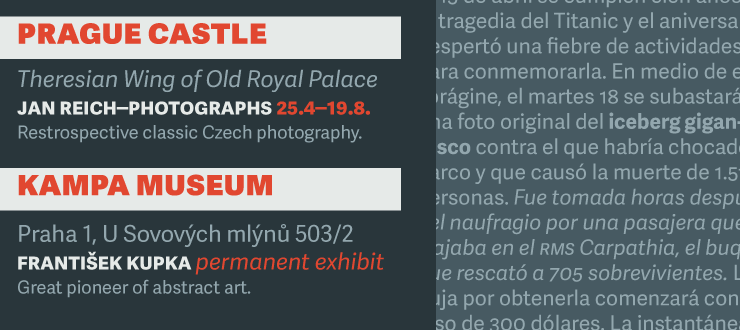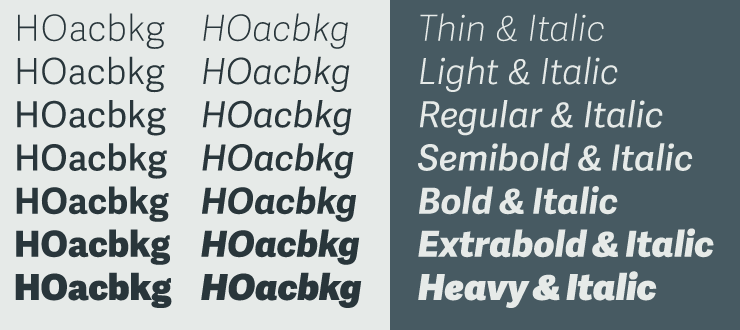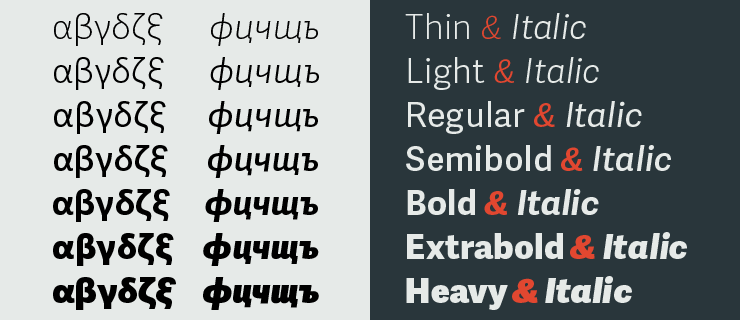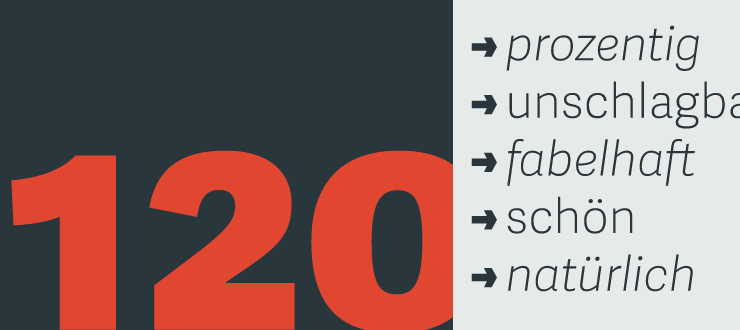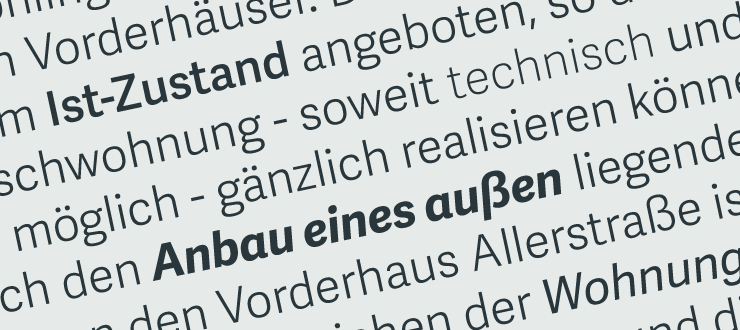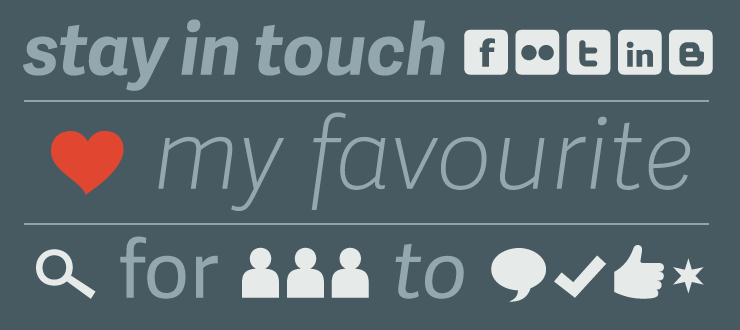
Adelle Sans
Designed by José Scaglione Veronika Burian . Released 2012.
Adelle Sans provides a clean and spirited take on the traditional grotesque sans. Whether for branding, signage, or advertising, the keyword behind Adelle Sans’s use is flexibility. Each of its 30 styles is a perfect match in terms of weight and vertical proportions to its slab serif equivalent, Adelle, ensuring an harmonious fit between both type families in the same block of text and a pleasing change of texture when used at similar point sizes. Adelle Sans is an exhaustive family with extensive language support. See the other scripts here.
The Backstory
Adelle Sans
A flexible and personable world-ready sans, providing true multilingual font support.
The Adelle Sans font family by José Scaglione and Veronika Burian provides a more clean and spirited take on the traditional grotesque sans. As is typical with TypeTogether typefaces, the most demanding editorial design problems were taken into consideration during its creation. The combination of lively character and unobtrusive appearance inherent to grotesque sans serifs make it an utterly versatile tool for every imaginable situation. Whether for global branding, screens, signage and advertising, or UI, the keyword behind Adelle Sans’s use is flexibility.
To save space and keep legibility high, Adelle Sans is available in eight weights with matching italics and includes a condensed width of seven weights with their matching italics. Each of these 30 styles hits the perfect tone as a headline punch or subdued background hum, and the condensed widths are adept at setting short texts while retaining the expected personality.
Rooted in the belief that broad language support is crucial to modern global type design, the Latin-matching variants are yet another push in TypeTogether’s ongoing multilingual efforts. The Latin script may have been first, but Adelle Sans has thus far been expanded into an exhaustive nine script family with extensive language support. Careful research and close collaboration with type experts yielded typographic consistency, legibility, and cultural awareness among all scripts, as well as filling the need for quality editorial typefaces in Arabic, Armenian, Chinese, Cyrillic, Devanagari, Latin Extended, Greek, and Thai, with more planned for the future.
In addition to the 30 Latin styles, all other scripts have between seven and fourteen styles, each of which has been engineered to optically match the proportions of its counterparts. And each script comes bundled with the Latin script to ensure an harmonious fit amongst any two or more Adelle Sans families in the same block of text.
The full Adelle Sans family delivers consistent, flexible, and personable results in multilingual documents, in apps, and multicultural branding worldwide. Its wide character set includes typographic niceties, small caps, several sets of figures, icons, and support for over 245 Latin-based languages. Be sure to check out the companions for Adelle Sans: Adelle, for a versatile and authoritative slab serif with no shortage of personality; and Adelle Mono, a two-width family flexible enough for developers and graphic designers alike.